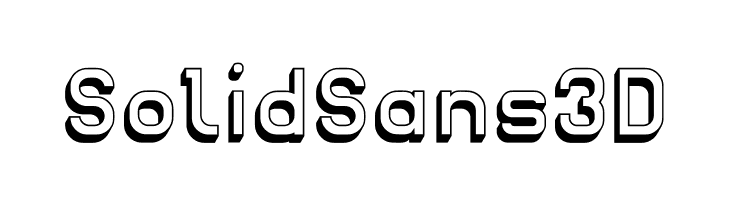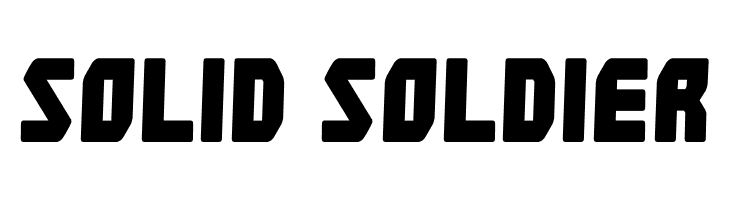
A bold, playful font with exaggerated curves and a whimsical flair.
A bold, italicized font with strong, dynamic strokes and a cohesive design.
A bold, italic font with dynamic slant and strong presence.
A bold, hand-drawn font with a playful and energetic style.
A bold, hand-drawn font with a playful and friendly style.
A bold, geometric font with a futuristic and industrial style.
A bold, 3D font with rounded edges and a playful style.
A bold, playful font with a cartoonish, hand-drawn style.
A playful 3D dice-themed font with bold, decorative characters.
A bold, geometric font with a modern and futuristic style.